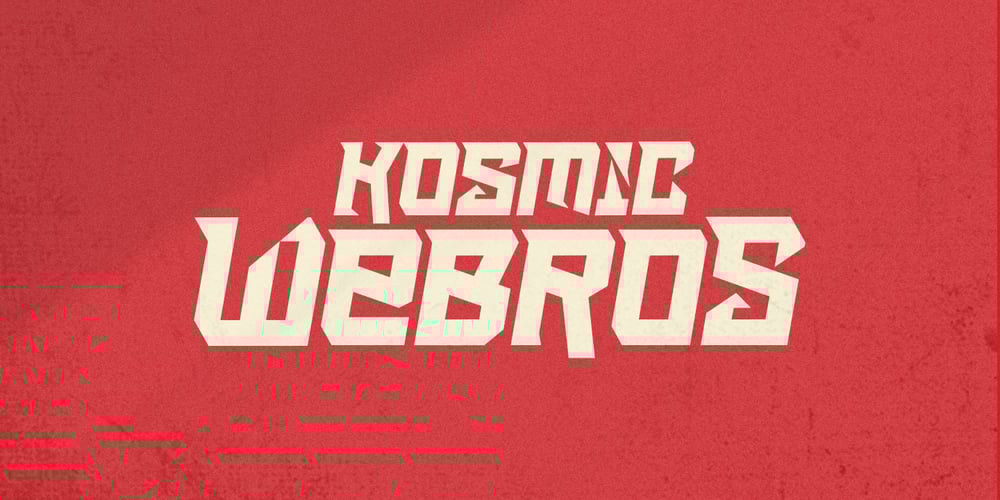
Kosmic Webros Font Family was designed by Jarnawi Saja and published by Grontype. Kosmic Webros contains 1 styles and family package options. Kosmic Webros is a bold and futuristic typeface that exudes a dynamic, modern vibe. Its sleek, slightly slanted design gives it a sense of motion and energy, making it perfect for cutting-edge logos and branding. The strong lines and distinctive style ensure maximum impact, capturing attention and projecting a forward-thinking, innovative image. Whether for technology brands, sci-fi themes, or creative projects, Kosmic Webros delivers a striking and memorable visual presence.Features: Bold Futuristic Font Modern Style Basic Latin Glyphs Unique All Caps Font Numeral and Punctuation Currencies Multilingual Support Thank you for picking up this font.Best Regard, Grontype